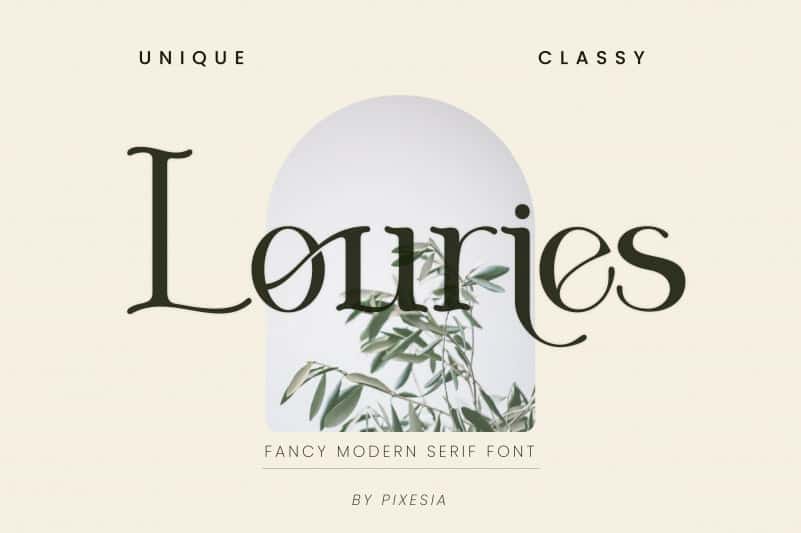
Louries Font
Louries Serif Font is a clean, serif font created by Pixesia Studio with some unique design details, giving this font a modern twist. It works great for logos, already matched up and ready to be used together for your next design!
For those of you who are needing a touch of elegant, stylish, classy, chic and modernity for your designs, this font was created for you!